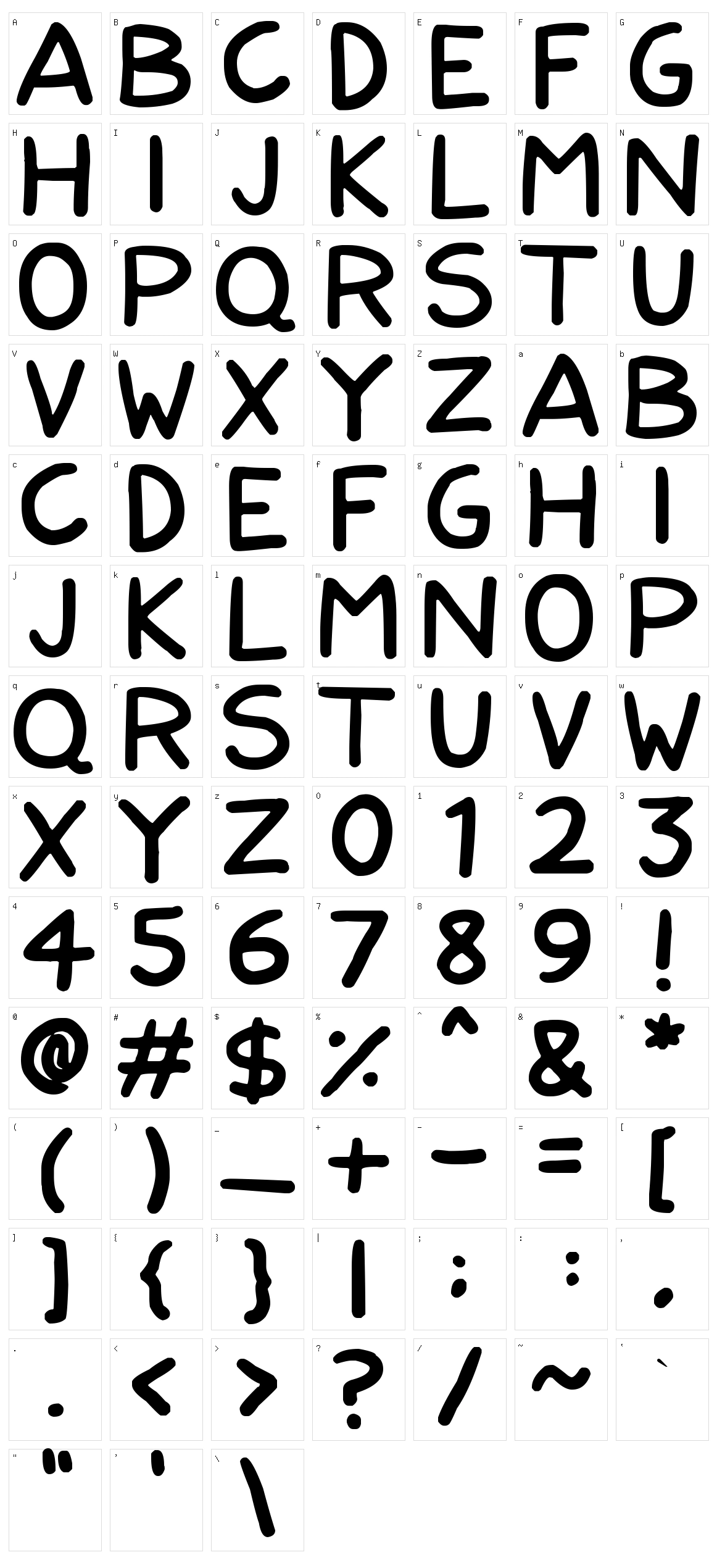
The free font Nerdy Norms is carefully designed by Hawtpixel, showcasing a thoughtful balance of creativity and usability and falls under the Script font style. When you download the ZIP file, it contains only 933.23 KB of font files, making it lightweight and quick to download. Please review the license details below to understand permitted usage and distribution rights. If license information is not available, we recommend using this font for personal projects only or contacting the author directly for commercial usage permissions.